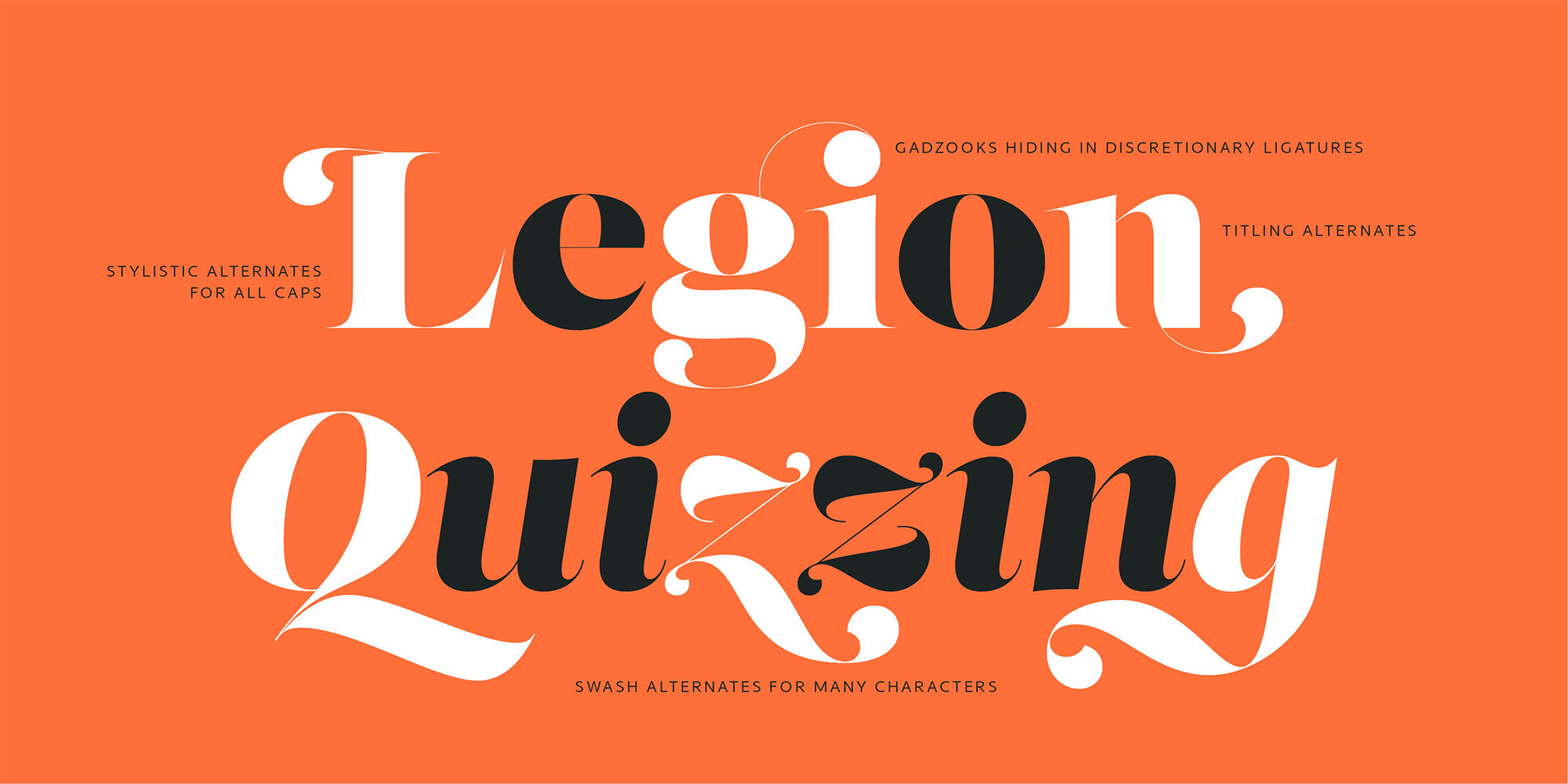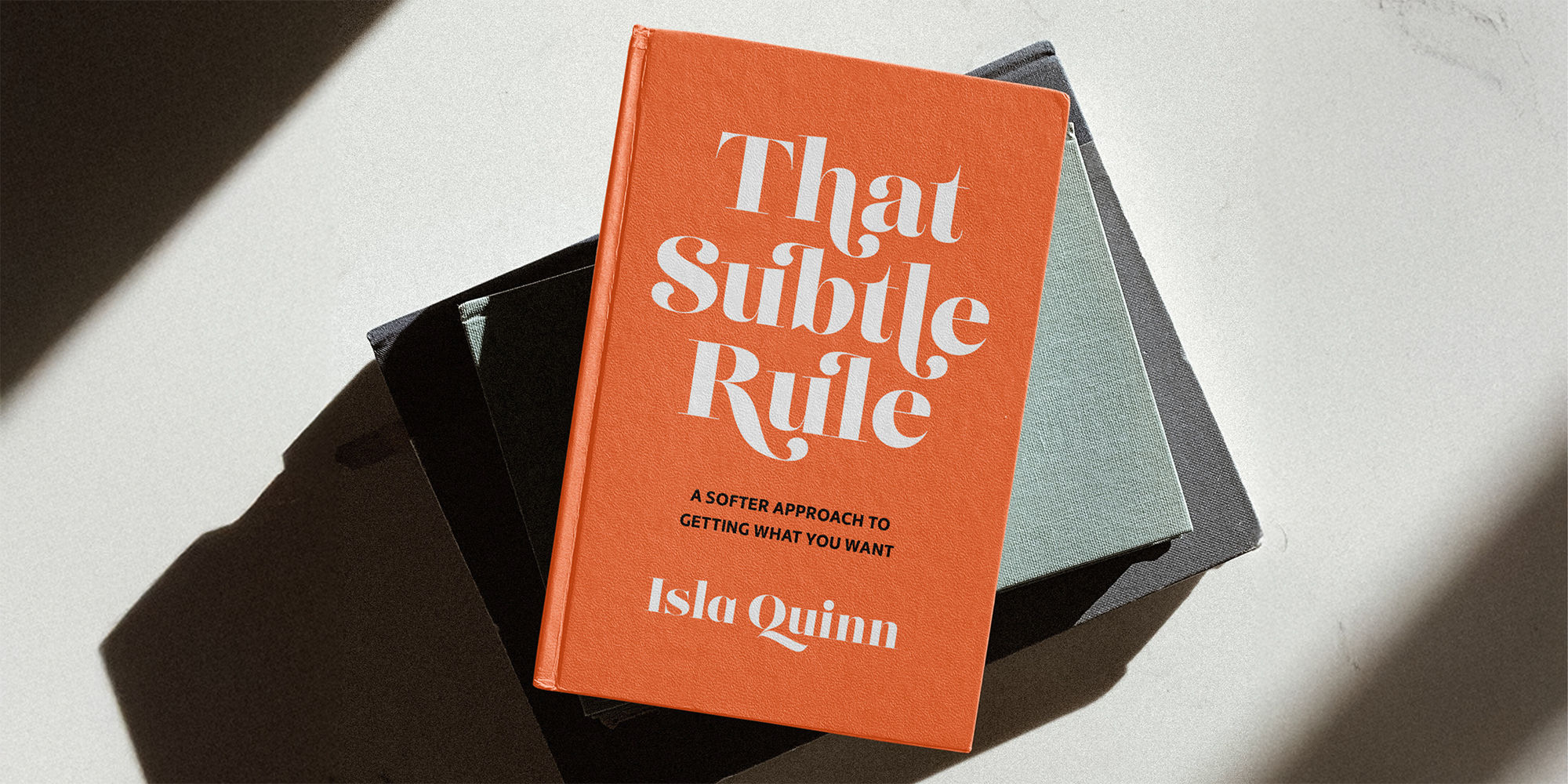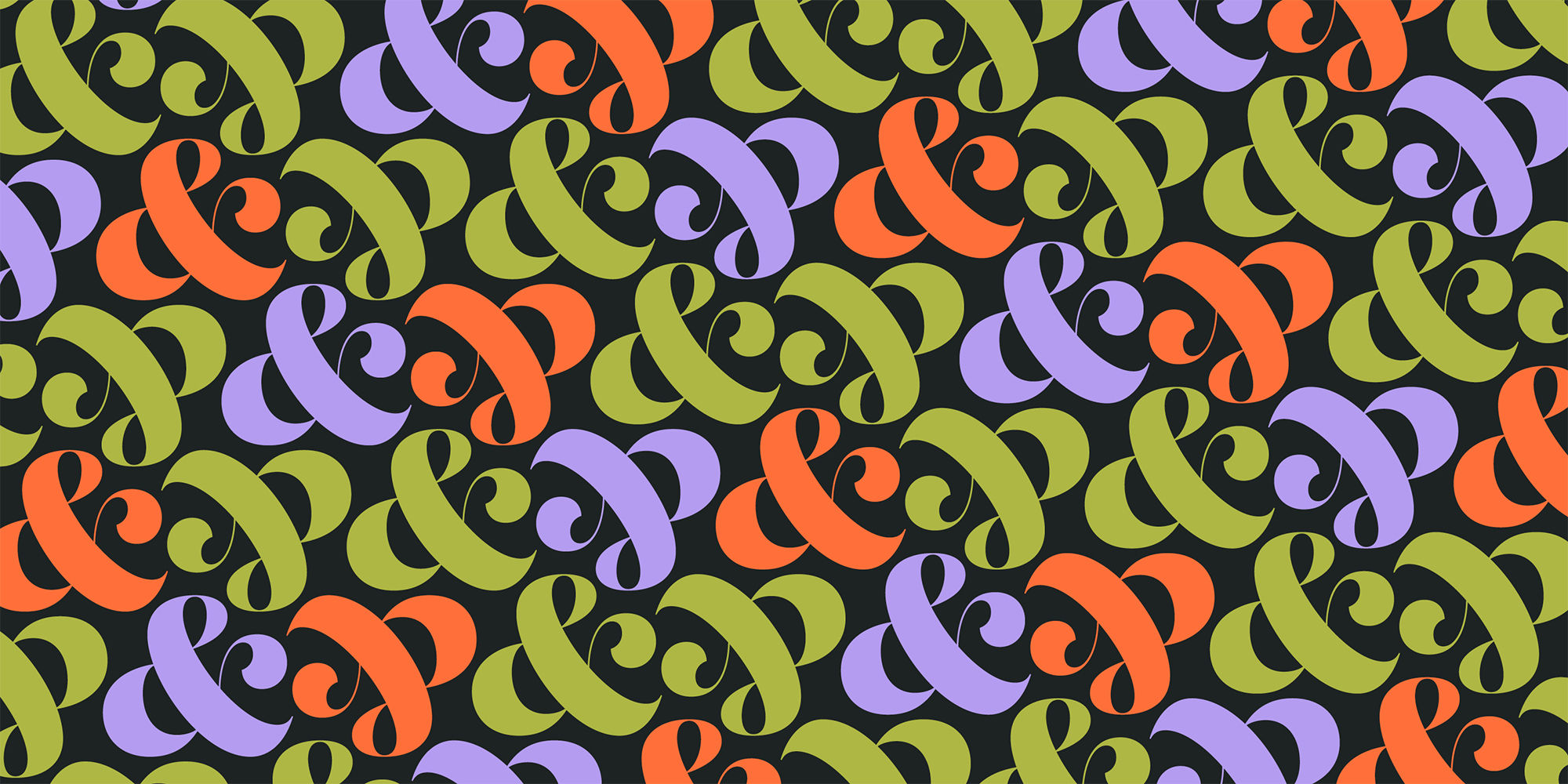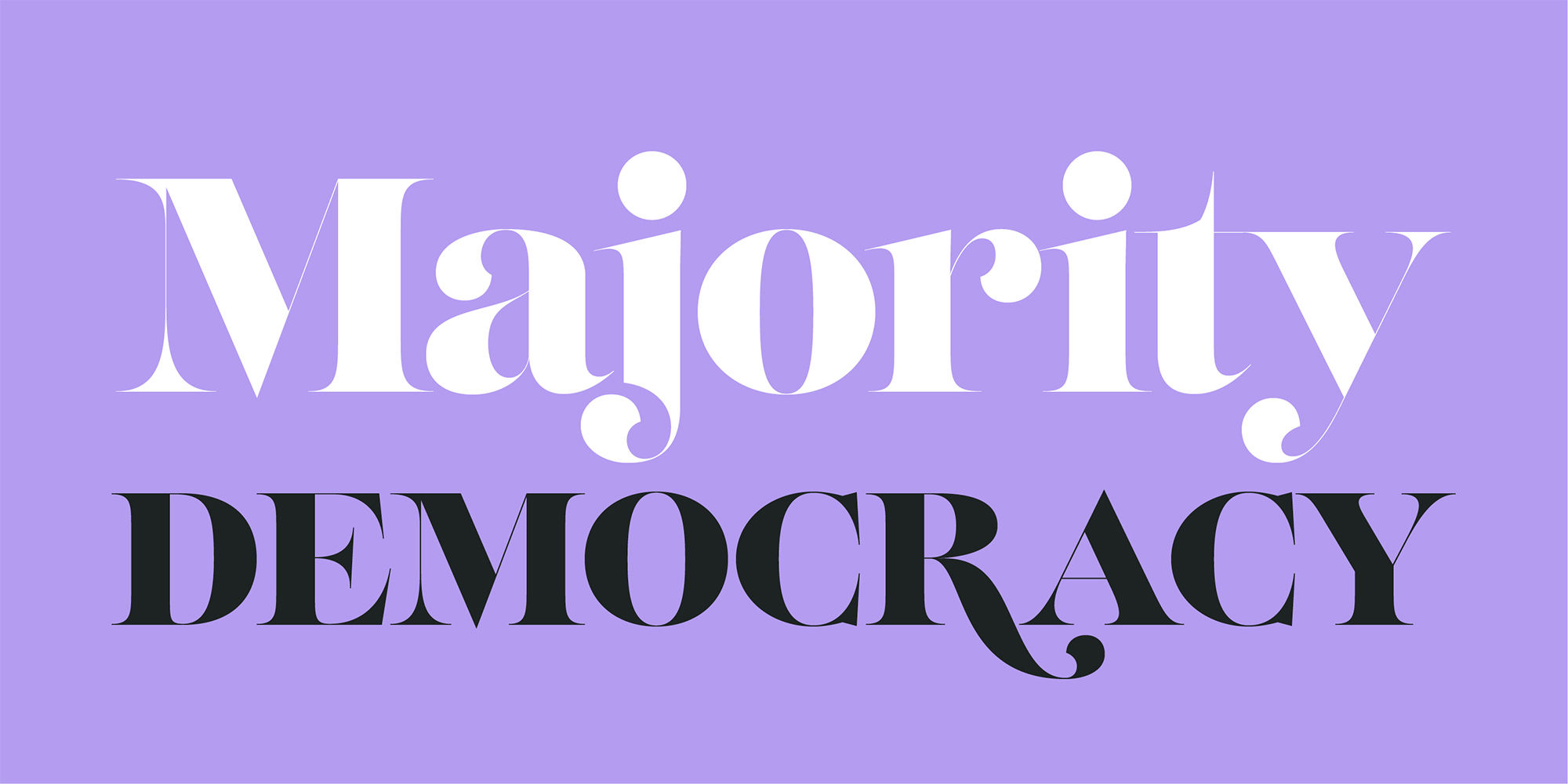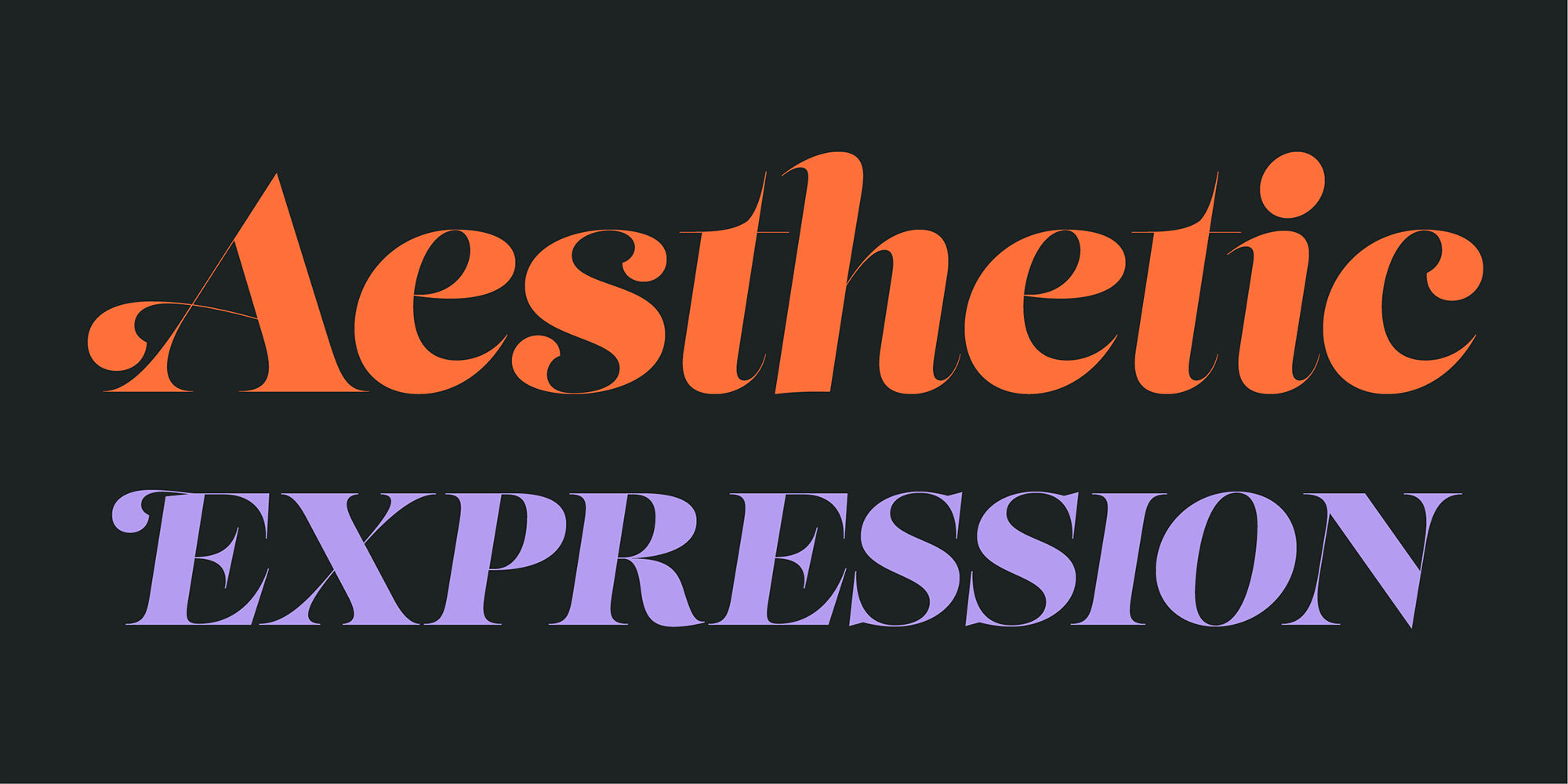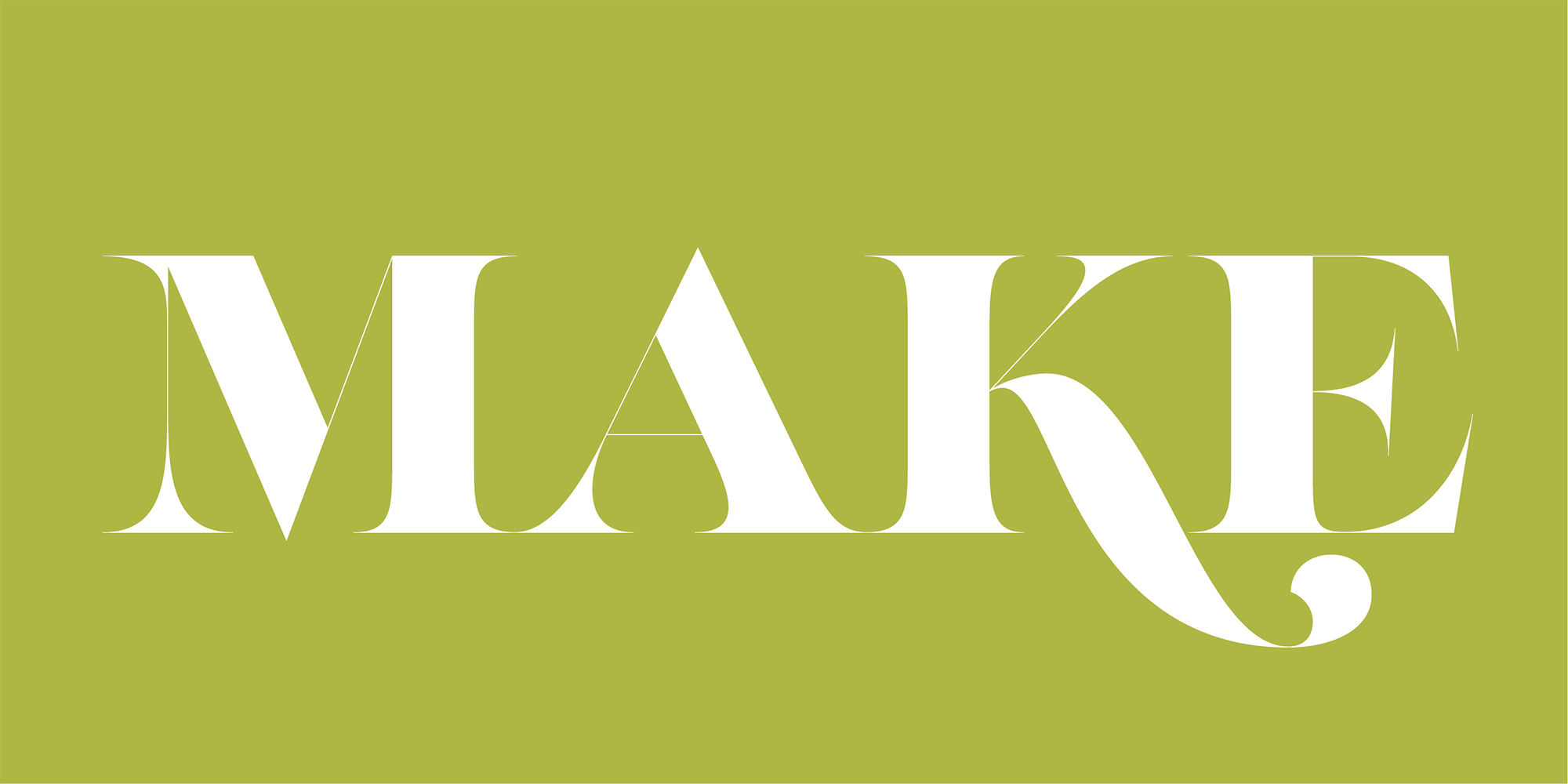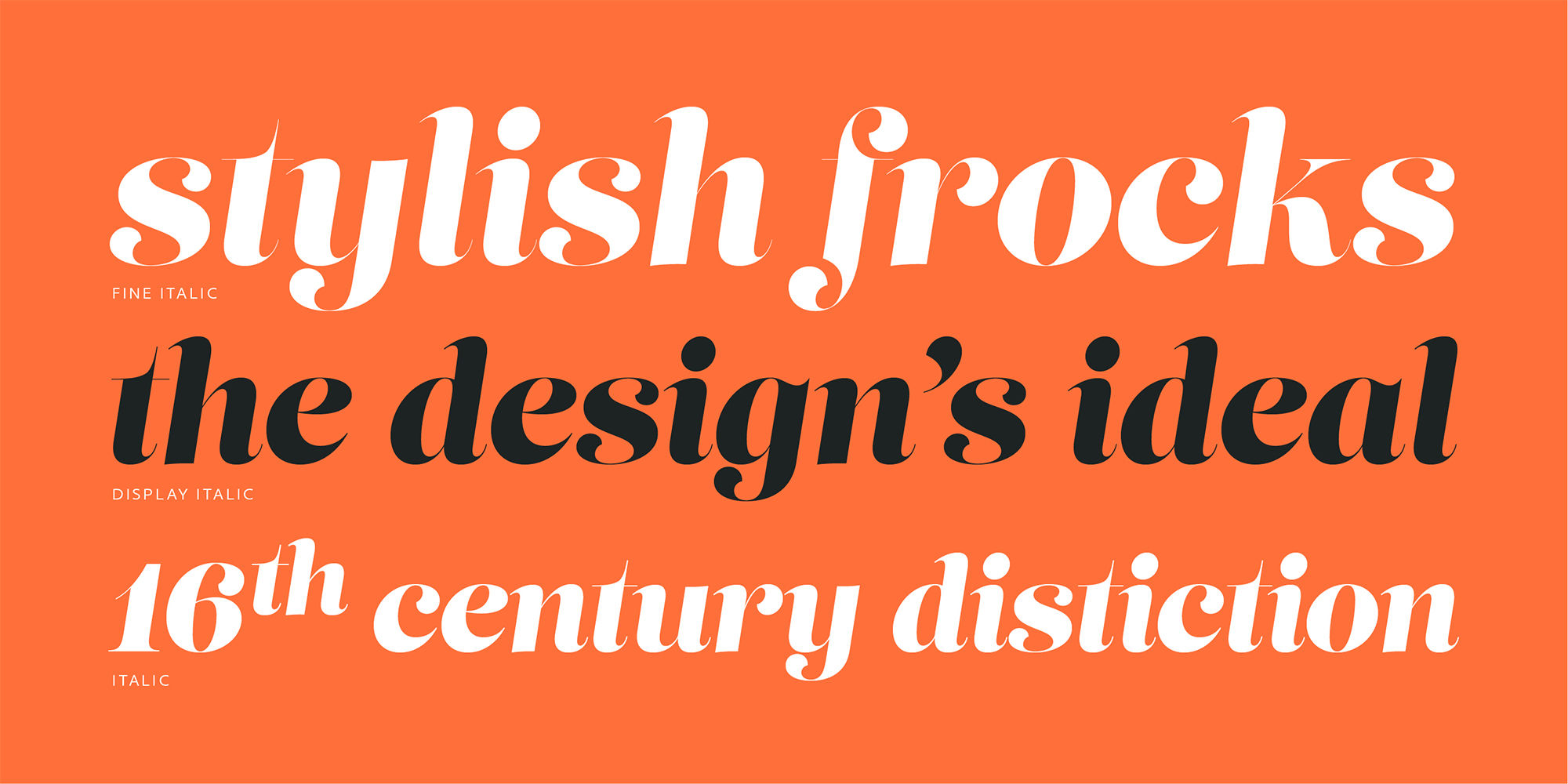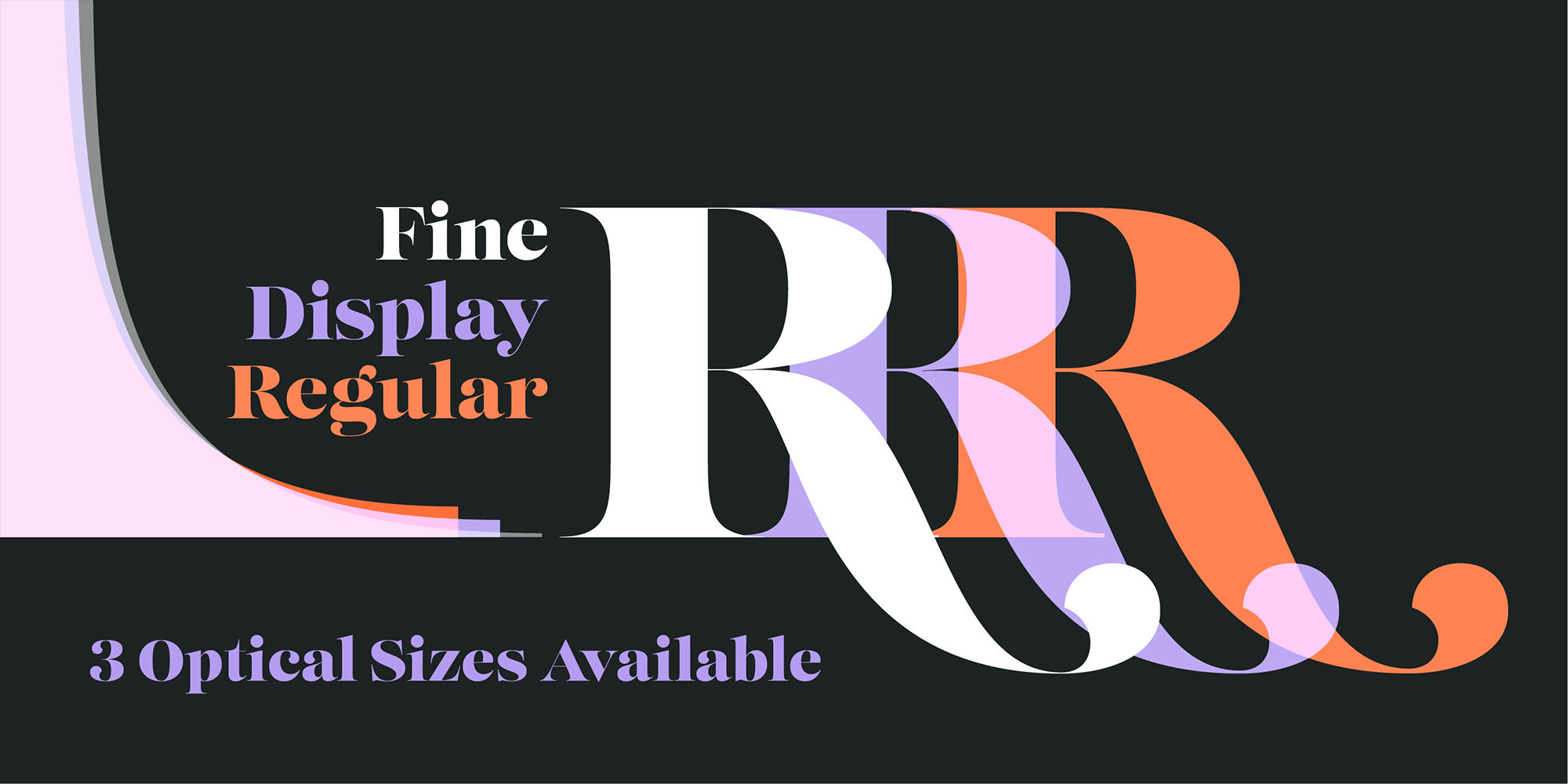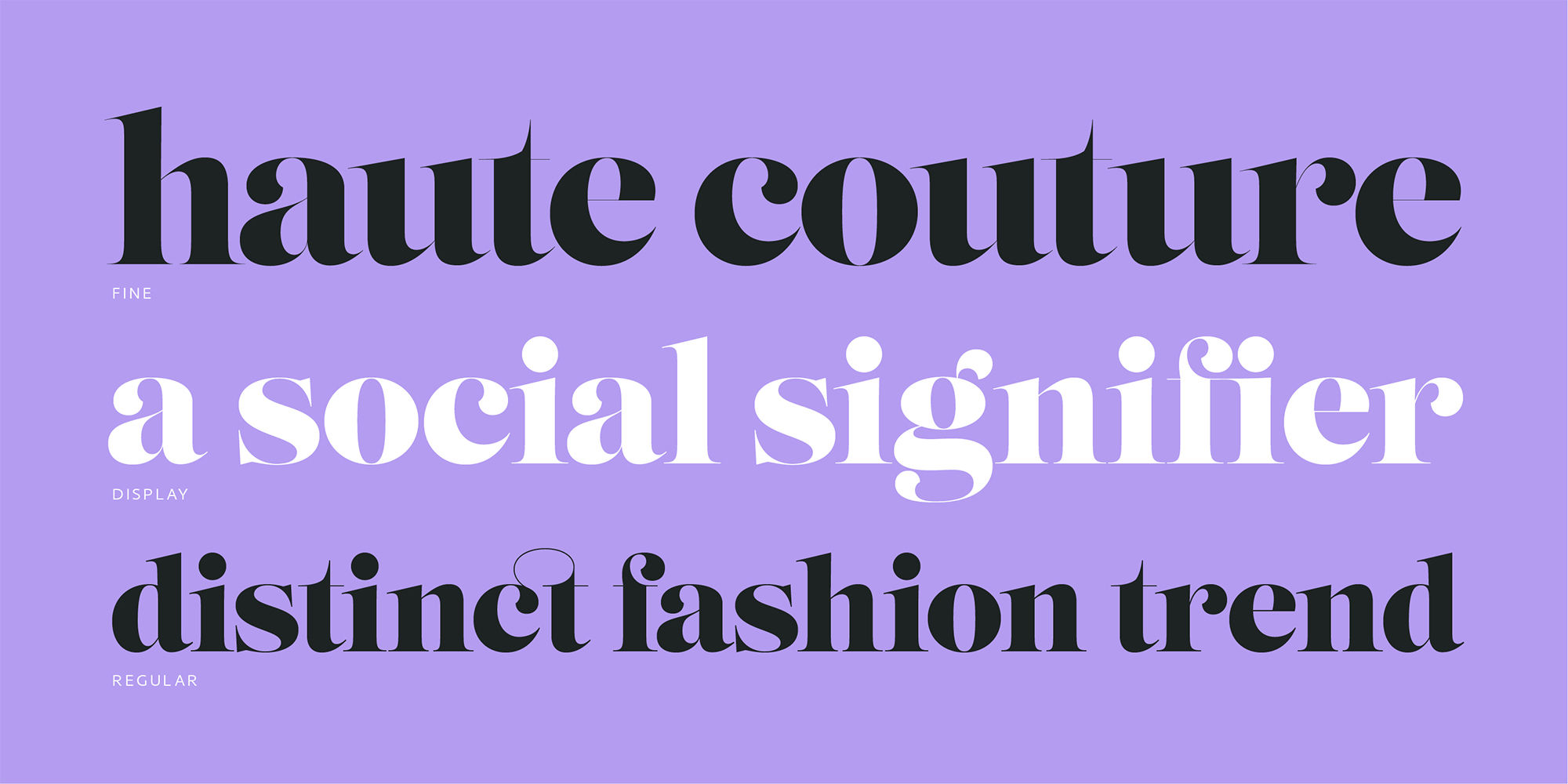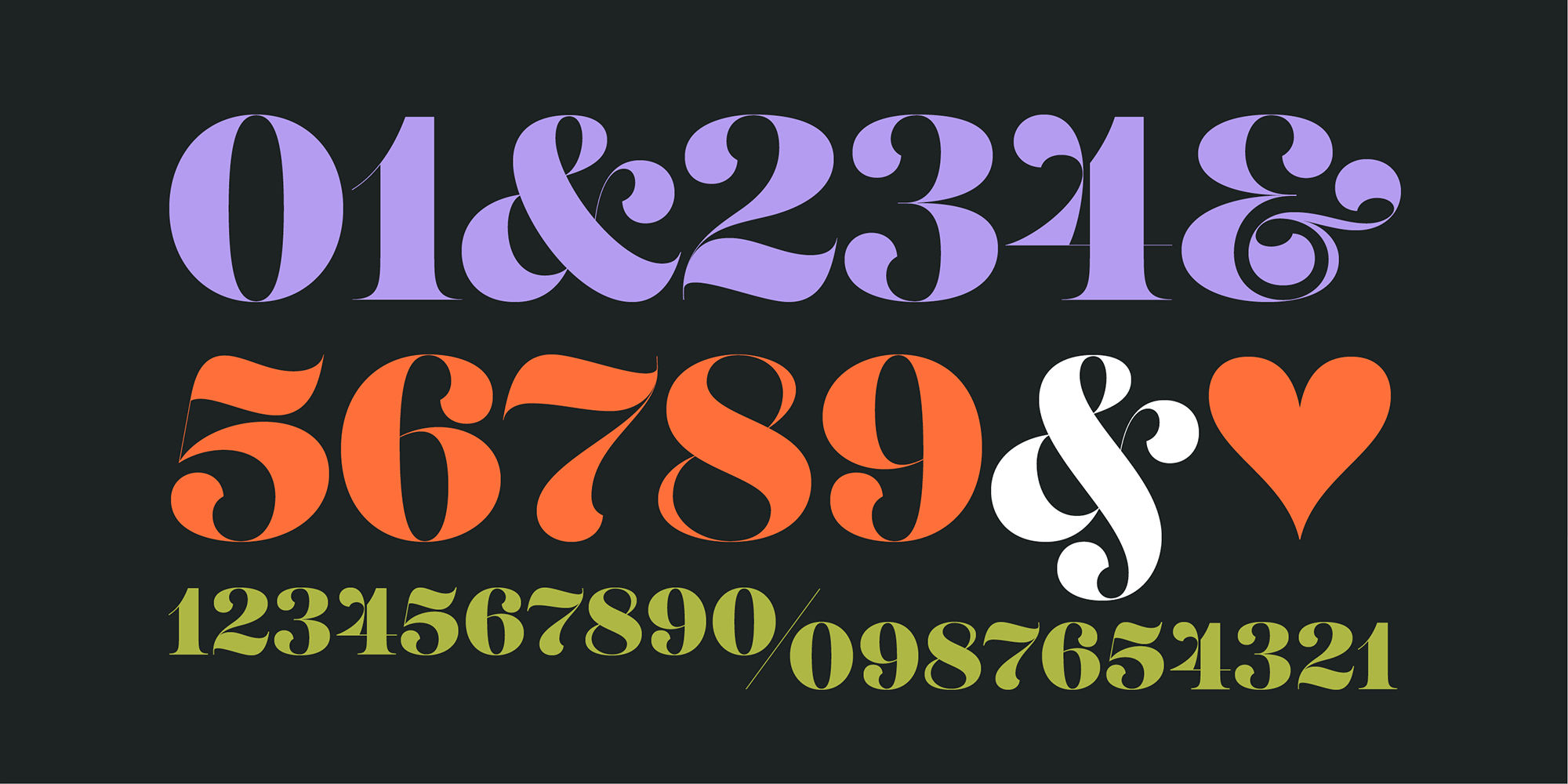
Lust
Styles:6
FineFine ItalicDisplayDisplay ItalicRegularItalic
Standard Ligaturesliga
Discretionary Ligaturesdlig
Swashswsh
Titling Alternatestitl
Fractionsfrac
Superscriptsups
Scientific Inferiorssinf
Ordinalsordn
Stylistic Set 1ss01
Stylistic Set 2ss02
Stylistic Set 3ss03
Lust’s original masters were completely redrawn, expanded, with a new optical size added based on customer requests. Lust now sports 6 fonts, instead of the original 4: Standard, Display, Fine, and complementing Italics. The character set has been expanded as well to include more OpenType features and more swashes.
The Lust Collection is the culmination of 5 years of exploration and development, and I am very excited to share it with everyone. When the original Lust was first conceived in 2010 and released a year and half later, I had planned for a Script and a Sans to accompany it. The Script was released about a year later, but I paused the Sans. The primary reason was the amount of feedback and requests I was receiving for alternate versions, expansions, and ‘hey, have you considered making?’ and so on. I listen to my customers and what they are needing… and besides, I was stalling with the Sans. Like Optima and other earlier high-contrast sans, they are difficult to deliver responsibly without suffering from ill-conceived excess or timidity. The new Lust Collection aggregates all of that past customer feedback and distills it into 6 separate families, each adhering to the original Lust precept of exercises in indulgence and each based in large part on the original 2010 exemplars produced for Lust. I just hate that it took so long to deliver, but better right, than rushed, I imagine.